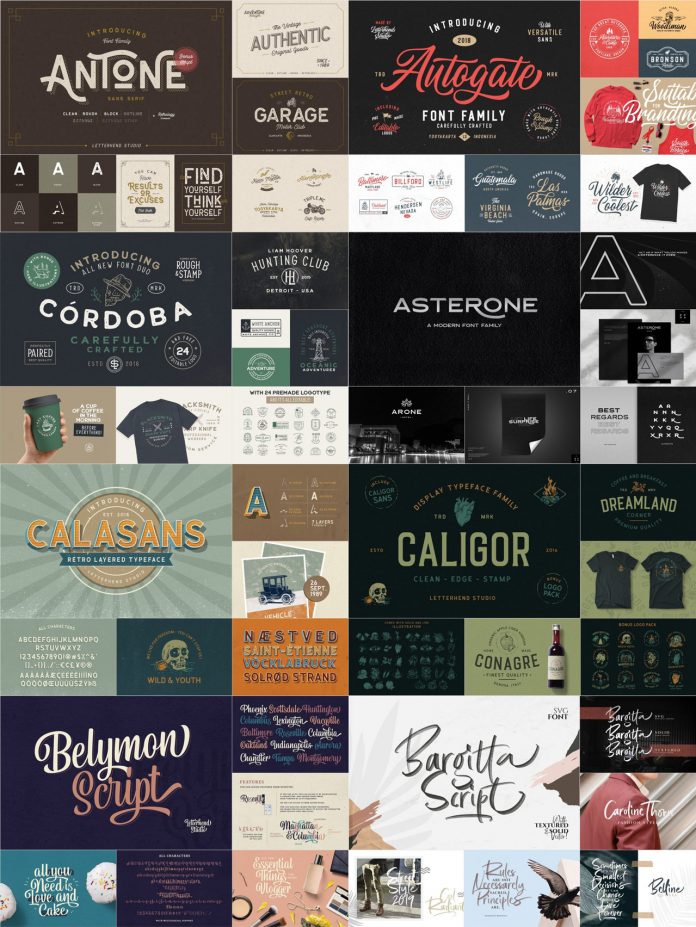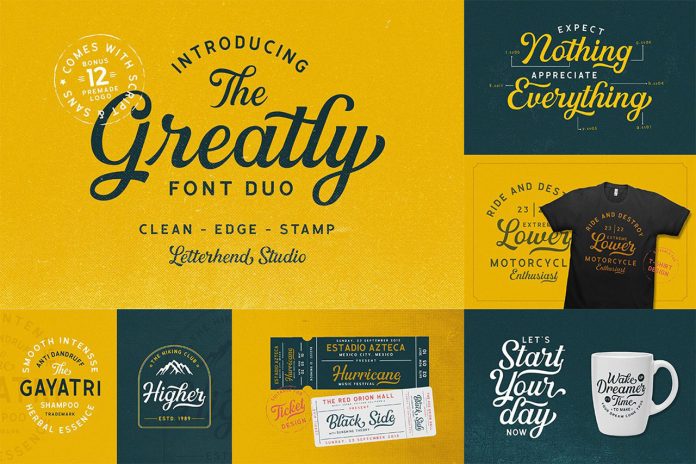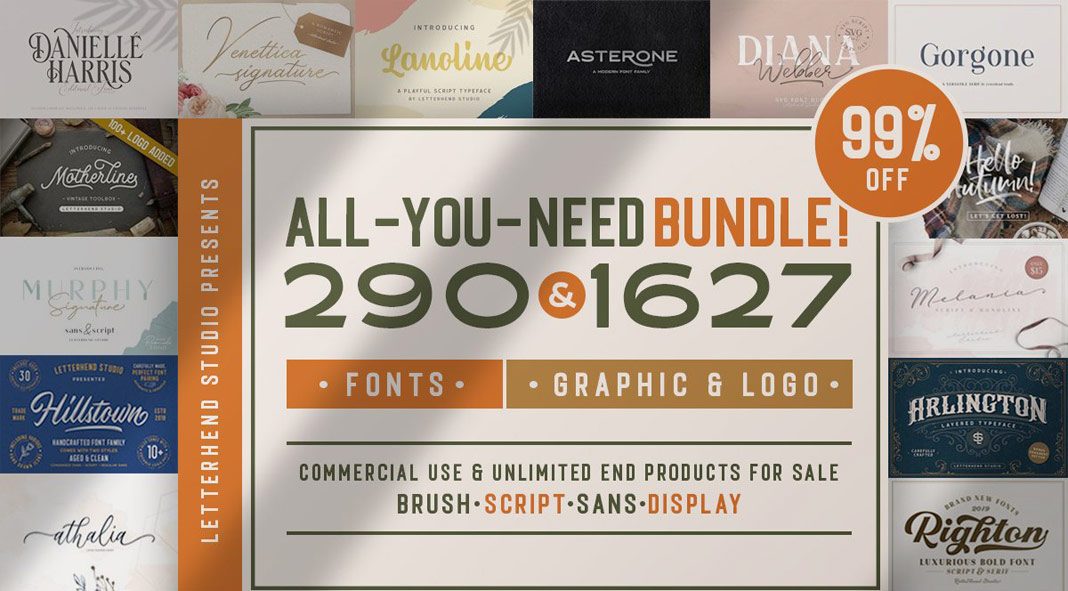
Get 290 amazing fonts as well as 1627 fully editable graphics and logos in one big bundle!
Oh boy, this deal is amazing! The team of Letterhend Studio released a huge bundle including 290 high-quality fonts as well as 1627 graphics and logos. The best of all: you can get the entire bundle for only $29 – that’s a discount of 99% on the actual price. The selection contains almost every typeface and graphic the studio has ever made. Just have a look at the wide range of different font styles you get with this big bundle. They have added typefaces ranging from modern sans fonts to elegant serifs, calligraphy styles, scripts, monoline typefaces, brush fonts, grungy styles, just to name a few. The possibilities seem endless. Using these different styles along with the big collection of graphics, you can create eye-catching posters, logos, headlines, greeting cards, invitations, packaging, apparel, etc. Most of the fonts are equipped with additional typographic features such as ligatures, alternates, and multilanguage support.